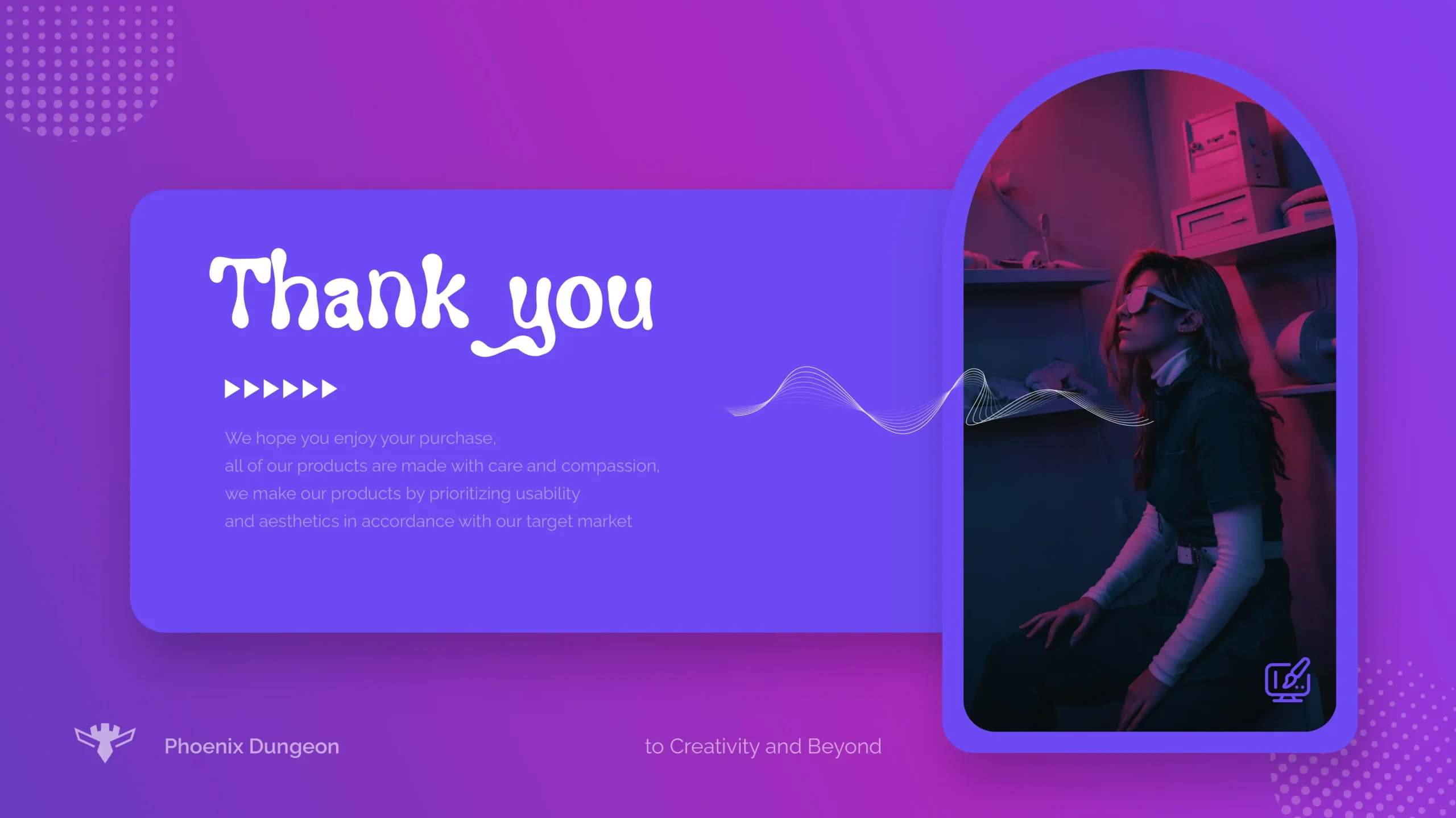
Earlene Font Xxmz3Wg
The Earlene Font is a stylish and versatile typeface that adds a touch of elegance to any design project. With its unique character shapes and flowing lines, this font is perfect for branding, logos, web design, and print materials.
• Weights: Light, Regular, Medium, Bold
• Ideal for creating eye-catching logos and branding materials.
• Use in web design to enhance readability and aesthetics.
• Perfect for print projects such as invitations, flyers, and business cards.